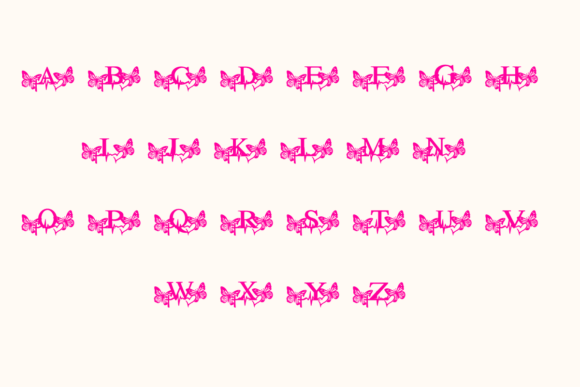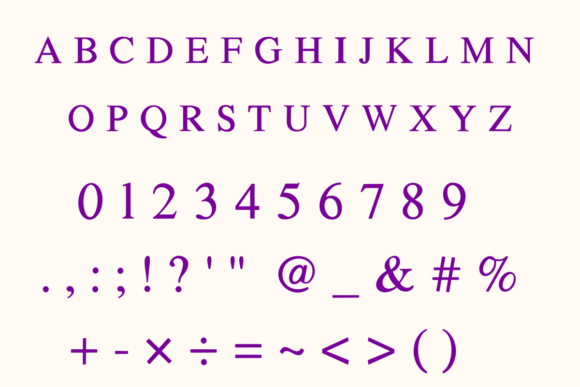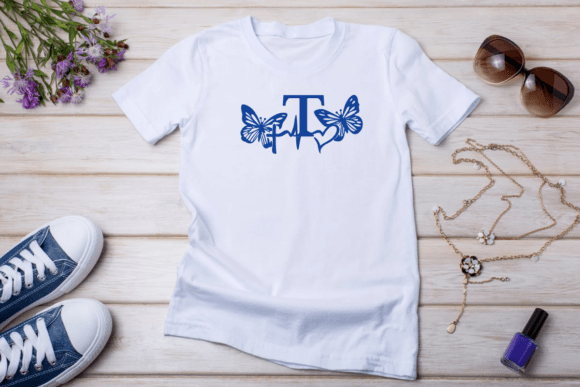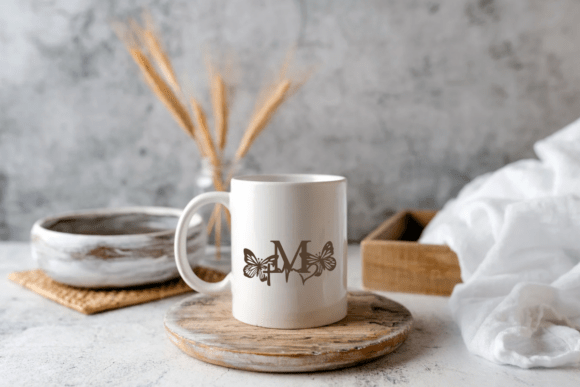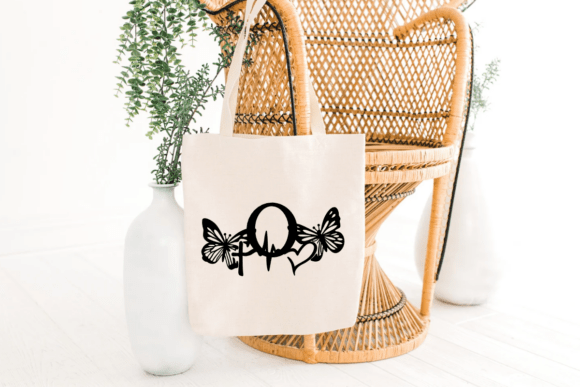
Introducing Heartbeat Butterfly Font: A Delightful Decorative Font for Creative Projects
Are you a designer, crafter, or DIY enthusiast looking for a unique and playful font to add a personal touch to your creations? Look no further than the Heartbeat Butterfly Font! This charming decorative font is perfect for a variety of projects, from personal notes and journals to greeting cards, banners, and more.
What is Heartbeat Butterfly Font?
Heartbeat Butterfly Font is a beautifully designed decorative font that features a whimsical and romantic style. The font’s unique design is inspired by the delicate patterns of butterfly wings and the rhythmic beat of the heart. It’s an ideal choice for anyone looking to add a touch of elegance and playfulness to their creative projects.
Uses for Heartbeat Butterfly Font
One of the best things about Heartbeat Butterfly Font is its versatility. You can use it for a wide range of projects, including:
- Note-taking and journaling: Add a personal touch to your notes and journals with this beautiful font.
- Greeting cards: Create unique and heartfelt greeting cards for special occasions.
- Banners and signs: Use the font to create eye-catching banners and signs for parties, events, or promotions.
- Social media posts: Add a touch of personality to your social media posts and stories.
- Mugs and ceramics: Create custom designs for mugs, plates, and other ceramics.
- T-shirts and apparel: Design unique and stylish t-shirts, hoodies, and other apparel.
- Stationery and paper crafts: Use the font to create custom stationery, stickers, and other paper crafts.
Why Choose Heartbeat Butterfly Font?
So, why should you choose Heartbeat Butterfly Font for your creative projects? Here are just a few reasons:
- Unique and eye-catching: The font’s unique design is sure to grab attention and add a touch of personality to your projects.
- Easy to use: The font is easy to read and use, making it perfect for a wide range of projects.
- Versatile: As mentioned earlier, the font can be used for a wide range of projects, from personal notes to commercial designs.
- High-quality: The font is designed with high-quality and clarity in mind, ensuring that it looks great even at small sizes.
Tips for Using Heartbeat Butterfly Font
Here are a few tips for getting the most out of Heartbeat Butterfly Font:
- Experiment with colors: The font looks great in a variety of colors, so don’t be afraid to experiment and find the perfect hue for your project.
- Pair with other fonts: Try pairing Heartbeat Butterfly Font with other fonts to create a unique and interesting contrast.
- Use it sparingly: While the font is beautiful, it can be overwhelming if used too much. Try using it sparingly to add a touch of elegance to your project.
Heartbeat Butterfly Font is a beautiful and versatile decorative font that’s perfect for designers, crafters, and DIY enthusiasts. With its unique design and wide range of uses, it’s an ideal choice for anyone looking to add a touch of personality to their creative projects. Whether you’re making greeting cards, banners, or social media posts, Heartbeat Butterfly Font is sure to delight. So why not give it a try and see what amazing creations you can come up with?